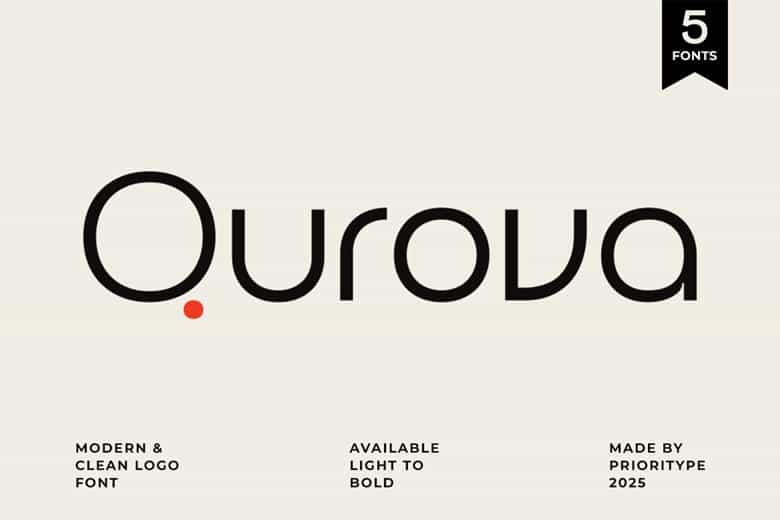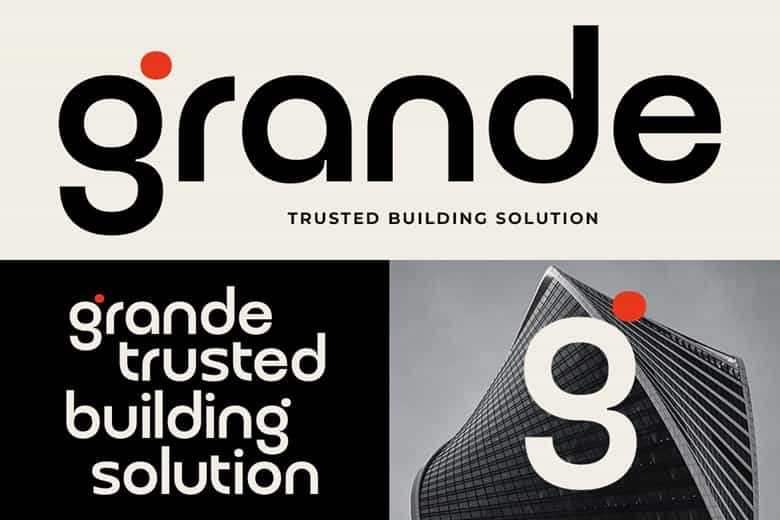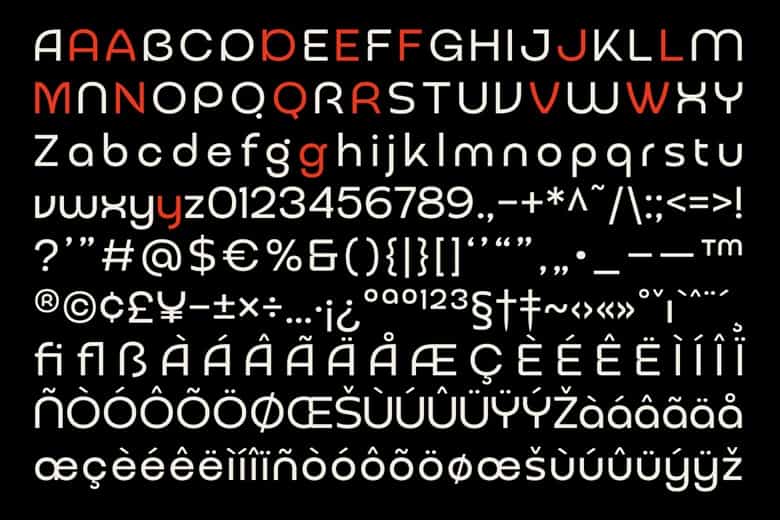
Qurova is a fresh font family, which belongs to sans serif typography and can be utilized for branding and corporate identity. Available in Thin to Bold it is for use in highly suggestive logo uses as well as in various forms of identification and pronounced branding tasks.